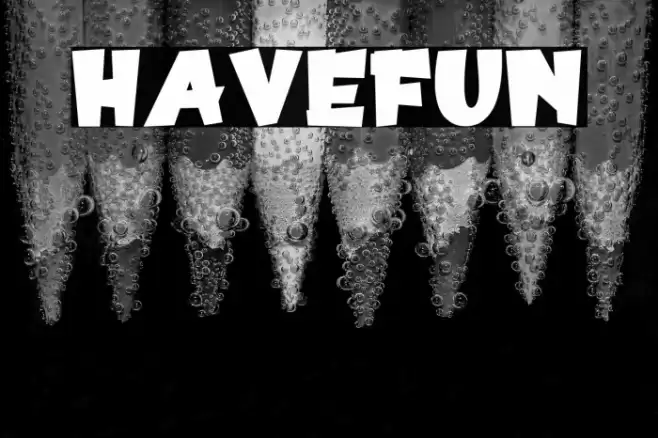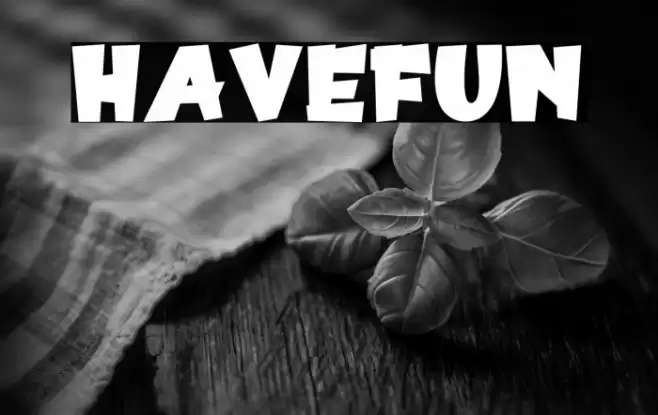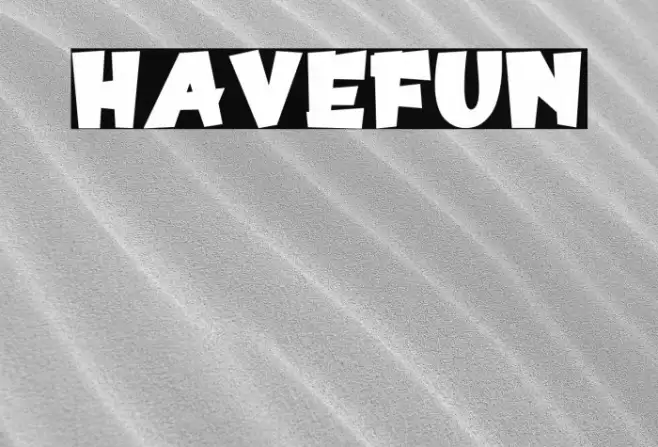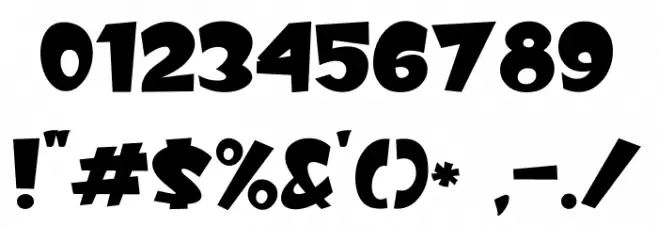
HaveFun Font
HaveFun Description
This playful and bold font features exaggerated, chunky letterforms with a dynamic, energetic feel. The characters are slightly irregular, giving them a hand-drawn appearance that adds to their whimsical nature. The uppercase and lowercase letters maintain a consistent style, with rounded edges and a slight tilt, enhancing the font's lively personality. Numbers and special characters follow the same design principles, ensuring a cohesive look across all elements. The font's boldness makes it highly legible, even at smaller sizes, while its unique style ensures it stands out in any design.
A playful, bold font with chunky, hand-drawn letterforms and a whimsical style from Cartoon fonts.
- Font: HaveFun
- Proposed Projects: Ideal for children's books, playful branding, party invitations, and comic-style graphics.
- Overall Style: Playful, Whimsical